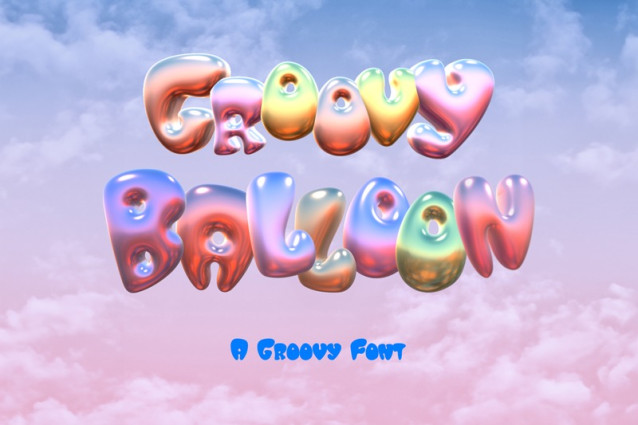
Groovy Balloon Font is a chunky, comic, and cartoon display font. With its neat and joyful personality, this font will enhance any project you wish to create!